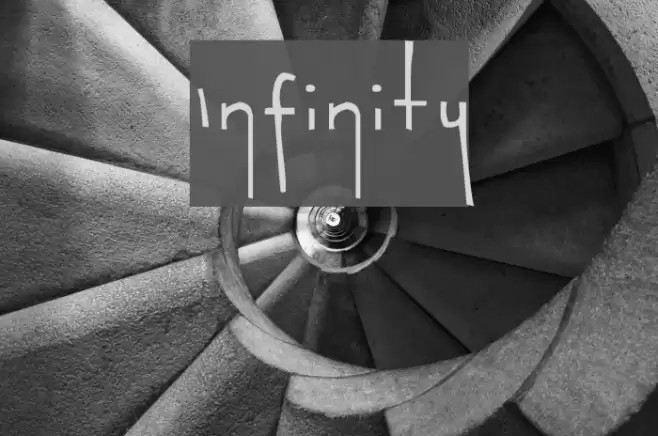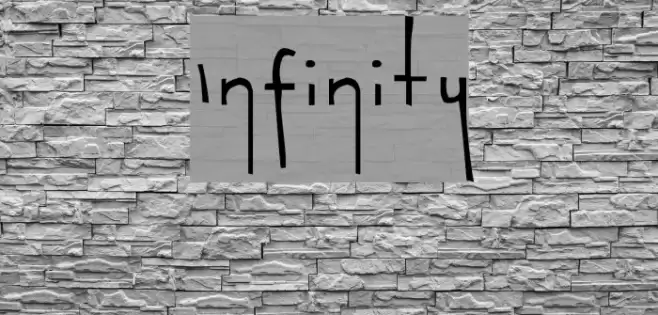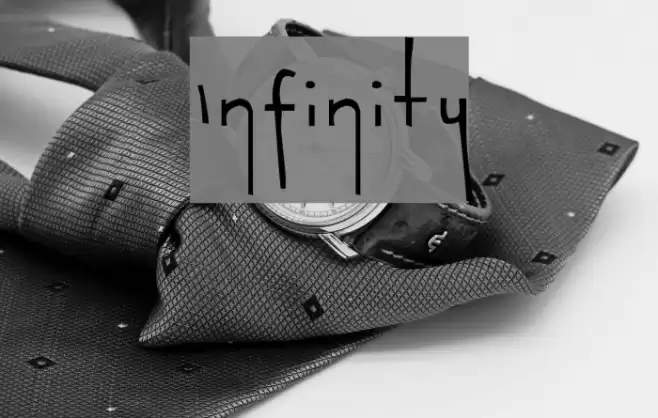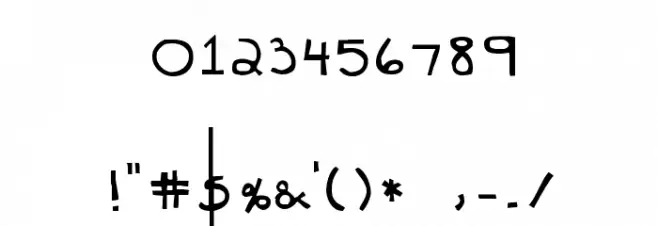
Infinity Font
Infinity Description
This font features a playful and quirky design with irregular strokes and a hand-drawn appearance. The uppercase letters are bold and slightly uneven, giving a sense of spontaneity and creativity. The lowercase letters maintain this whimsical style, with some characters having elongated or exaggerated features, such as the 'f' and 'j'. Numbers and special characters follow the same playful aesthetic, making the font suitable for informal and creative projects. The overall look is casual and artistic, perfect for adding a personal touch to designs.
A playful, hand-drawn font with irregular strokes and a whimsical style from Uncategorized fonts.
- Proposed Projects: Ideal for children's books, creative posters, casual invitations, and artistic branding.
- Overall Style: Casual, Artistic
- Use Case: Headlines, Informal text, Creative projects